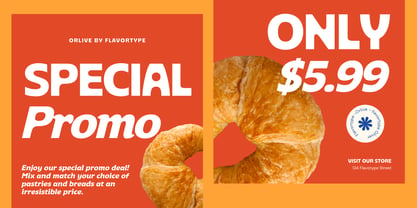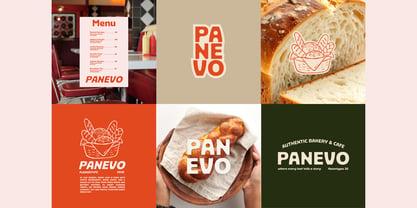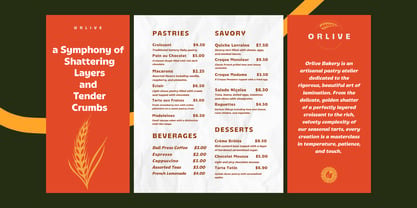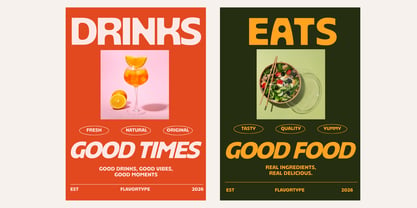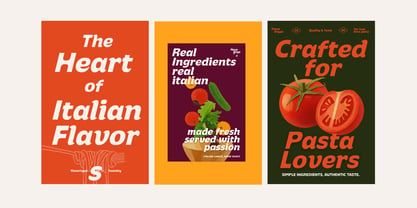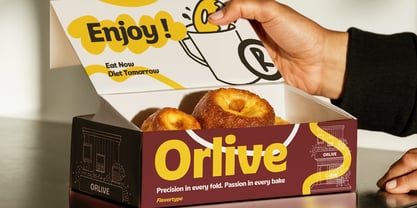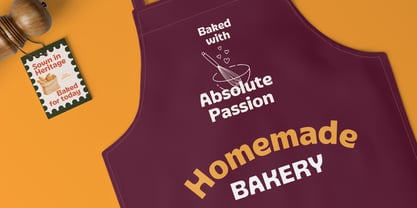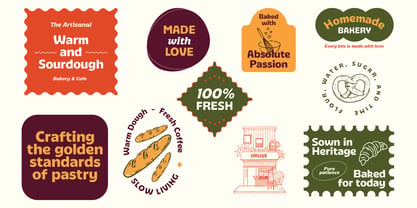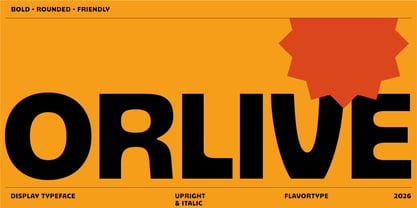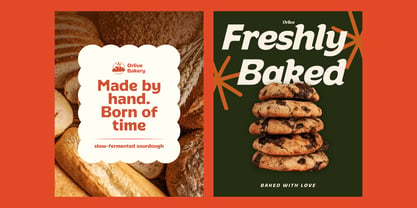
Orlive
The Orlive Font Family was designed by Ilham Herry, Adam Fathoni Haris, panji nugroho, Rizky Setyaludin and published by Flavortype. Orlive contains 2 styles and family package options. More about this family
Orlive is a warm and expressive display typeface crafted to infuse personality into every layout. With its bold curves, soft corners, and playful rhythm, Orlive radiates confidence, friendliness, and a rich flavor. It offers two distinct styles: Upright for strong, impactful headlines and Italic for a dynamic, energetic feel. This versatile duo is ideal for branding, packaging, menus, posters, social media, and any project that demands a bold human touch.
Inspired by artisan bakery signs, retro grocery packaging, and cheerful food branding, Orlive achieves a perfect balance between chunky letterforms and smooth readability. The result is a typeface that feels both nostalgic and fresh, playful yet dependable. Whether designing for a café, snack brand, lifestyle project, or vibrant editorial layout, Orlive effortlessly adds warmth and character to your designs.